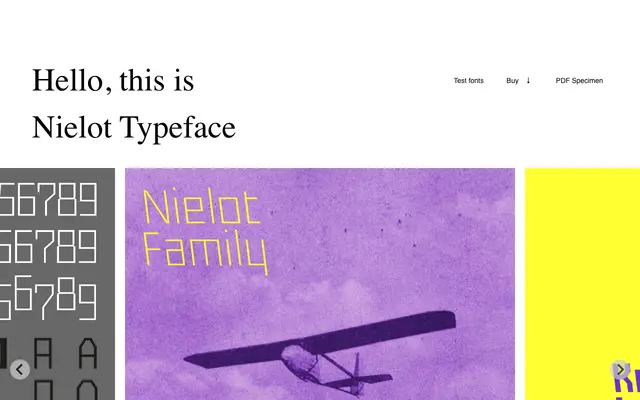
Nielot
Laïc · Maciej Połczyński
A Constructivism-inspired geometric display typeface by Maciej Połczyński, built from simplified letterforms with an oblique slant.
Drawn from the poster lettering of the Constructivist movement, it favours clean, undecorated geometry over expressive flourish. The defining characteristic is a consistent slant applied across all letterforms, recalling the dynamic angles of avant-garde print. Coverage extends to Latin with full Polish diacritics and Cyrillic, and both lining and oldstyle figures are included.
A geometric typeface with an oblique slant drawn from Constructivist poster lettering; its simplified, non-decorative letterforms and angular character place it firmly in the display/geometric display category rather than a neutral geometric sans.